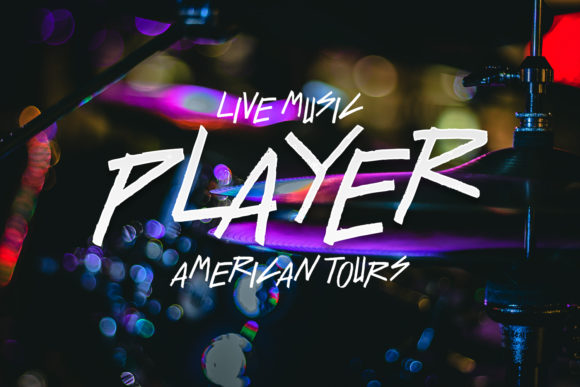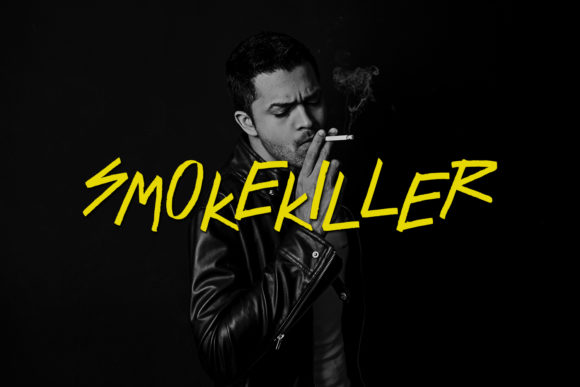
Introduction to Reff Devil Font
Reff Devil is a strong and bold display font with a dark twist.
This unique typeface will add a serious feel to any application .
Key Features of Reff Devil Font